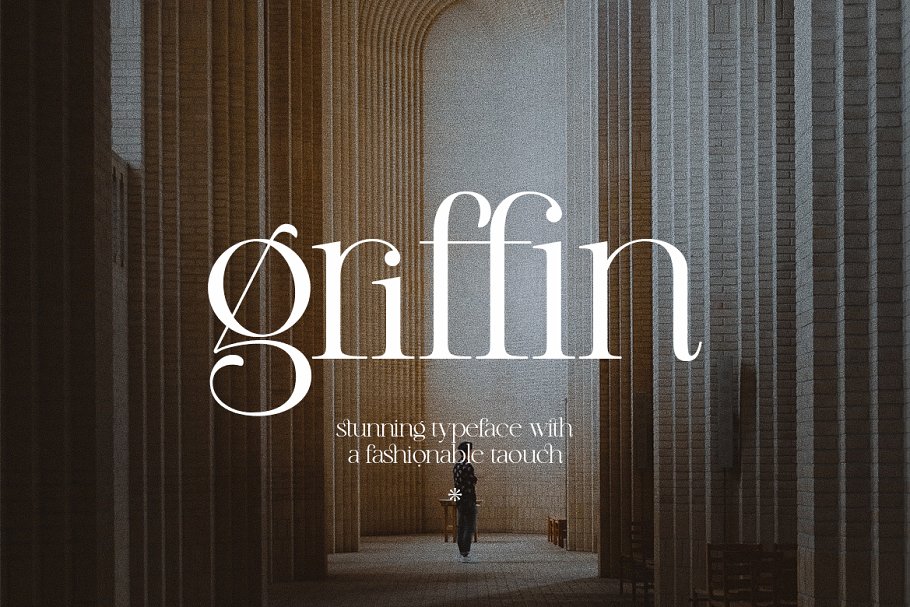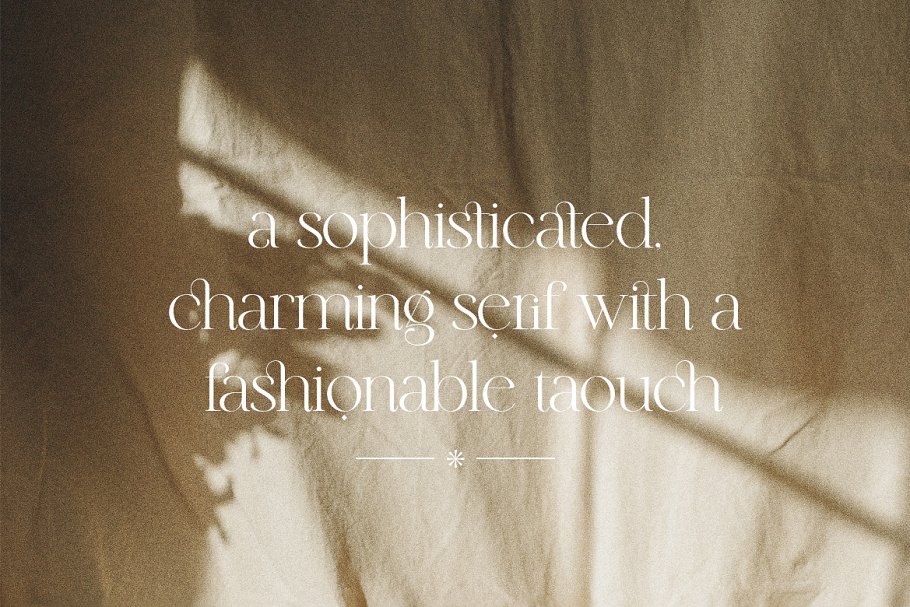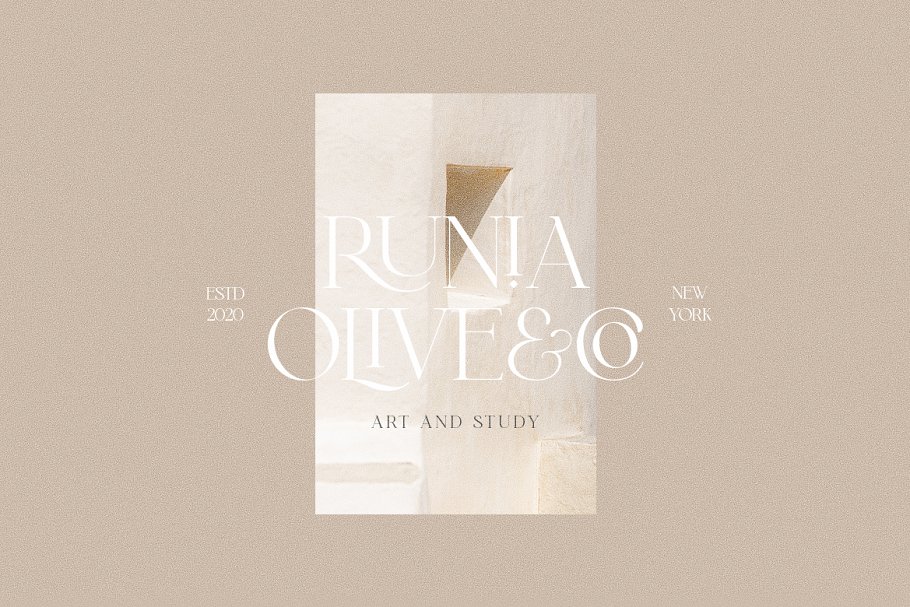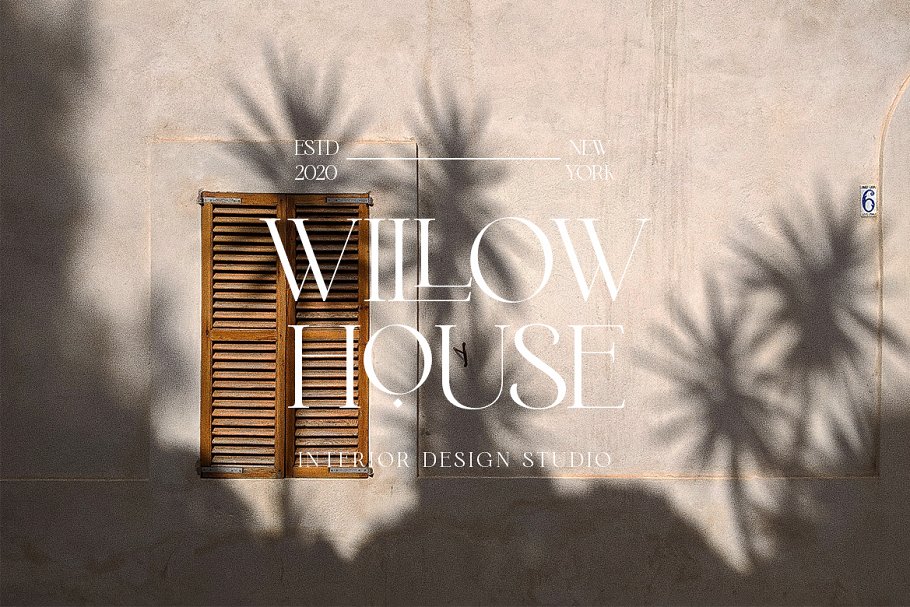
About the Griffin Modern Serif
Griffin – a chic & elegant display modern serif with beautiful contrast, Specially designed for fashion-themed projects, perfectly suitable for creating elegant, chic, lifestyle designs such as logos, titles, magazines, and more, Features :Lowercase uppercaseNumbers and punctuationMultilingualAlternates & LigaturesPUA encodedWe highly recommend using a program that supports OpenType features and Glyphs panels like many of Adobe apps and Corel Draw, so you can see and access all Glyph variations